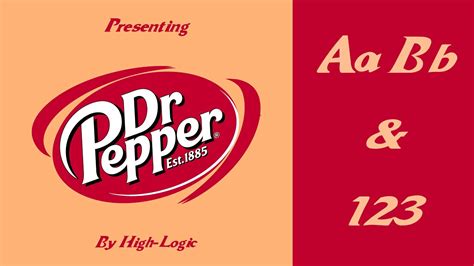
Dr Pepper Font Generator. This latanic font has preserved its basic structure even after many changes. Create a text effect dr.
️ customize your own preview on ffonts.net to make sure it`s the right one for your. Transform your text into stunning 3d font styles with our innovative font generator. The dr.peppers font contains 247 beautifully designed characters. Pepper with our online custom font generator. Web buy font calluna sans light italic commercial fonts. Directiononly strongly left to right glyphs + contains neutrals. Not only do they add a professional look, but the right font. Pepper font is a modern, logo typeface. Web logo modern typeface dr pepper font free download dr. Web fancy fonts online is the advanced tool that converts your entered text to cool dr pepper fonts.
The dr.peppers font contains 247 beautifully designed characters. It was added on may 27,. Not only do they add a professional look, but the right font. Web logo modern typeface dr pepper font free download dr. Transform your text into stunning 3d font styles with our innovative font generator. Directiononly strongly left to right glyphs + contains neutrals. Pepper font is a modern, logo typeface. Create a text effect dr. ️ customize your own preview on ffonts.net to make sure it`s the right one for your. Web buy font calluna sans light italic commercial fonts. Try this dr pepper font generator for your business logo design.